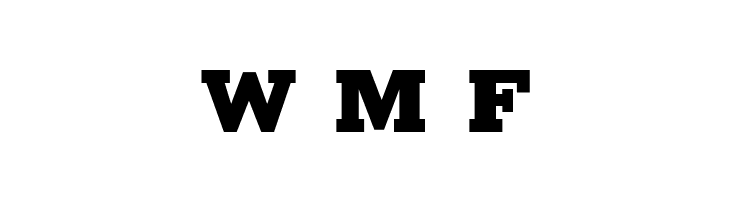
A clean, geometric sans-serif font with consistent stroke width and balanced spacing.
A clean, modern sans-serif font with geometric structure and balanced spacing.
A clean, minimalistic font with thin, uniform strokes and a geometric influence.
A sleek, modern italic font with elongated, uniform strokes and a dynamic appearance.
A bold, geometric font with a modern and slightly retro style.
A bold, dynamic font with exaggerated, angular shapes and varying line thicknesses.
A bold, blocky font with a strong, industrial style.
A bold, stencil-like font with angular strokes and a dynamic, aggressive style.
A bold, condensed font with high contrast and a modern, geometric style.
A bold, geometric font with a modern, futuristic aesthetic.
A bold, distressed font with a vintage, grunge texture.
A dynamic blackletter font with italicized, high-contrast strokes.
A bold, condensed blackletter font with ornate, angular letterforms.
A bold, condensed, and distorted decorative font with a jagged, thorn-like texture.
A bold, italicized blackletter font with sharp, decorative strokes.
An ornate Blackletter font with sharp, angular lines and high contrast.
A bold, italicized blackletter font with condensed, angular strokes.
A bold slab serif font with strong, block-like serifs and consistent stroke widths.
A bold, slab serif font with strong, thick strokes and a modern aesthetic.
A bold, modern typeface with strong geometric shapes and clean lines.
A modern, bold sans-serif font with clean lines and excellent readability.
A modern, extra bold sans-serif typeface with italic styling.
A bold, italicized font with a modern and authoritative style.
( Tadaca is a very original font. All this typography is based on latin letters, but i wanted to make them easier, even if some of them are designed according to what they make me feel. I'm 15 years old and it s my first one, i worked hard on it ! Enjoy ! )